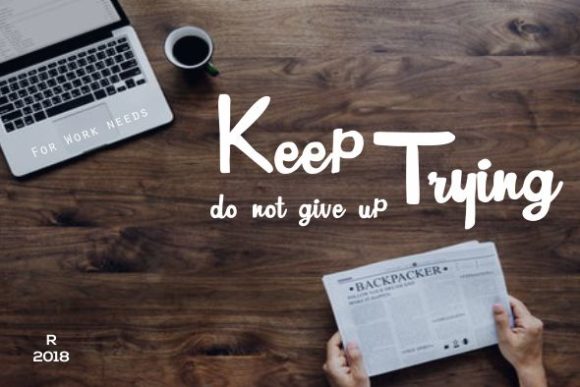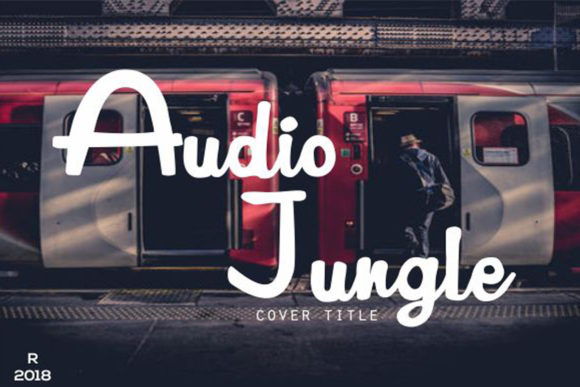
Introduction to Rollink Script Font
Have you ever found yourself stuck in the middle of a creative project, searching for that perfect font to elevate your design and make it truly stand out? We’ve all been there, scrolling through endless font options, hoping to stumble upon that one special font that adds a touch of magic to our work. Well, search no more, because we’re excited to introduce you to the Rollink Script Font – a modern script font that’s sure to become your new favorite design resource.
With its beautiful and distinctive writing style, the Rollink Script Font is perfect for logos, branding, motion graphics, visual designs, posters, invitations, typography, templates, product packaging, and advertisements. Whether you’re working on a free download project or a high-paying client job, this font is sure to bring a professional touch to your designs.
Key Features of Rollink Script Font
- High-quality, elegant design suitable for various creative projects, including wedding invitations, logos, and other design resources.
- Includes a range of ligatures and swashes, making it perfect for adding a touch of elegance to any design.
- Designed to be highly legible, even at small font sizes, making it ideal for use in various design contexts, including print and digital media.
- Perfect for designers and artists looking for a high-quality, free design resource to elevate their creative projects.
Honest Review: Rollink Script Font
As a designer, I’ve had my fair share of experimenting with various fonts for my creative projects. Recently, I stumbled upon the Rollink Script Font, and I must say, it’s been a delightful addition to my design resource library.
One of the standout features of this font is its elegant, handwritten style, which adds a touch of sophistication to any design. It works beautifully with a transparent background, allowing the text to take center stage.
Here are some of the things that work well for me:
- High-quality font that’s perfect for creative projects
- Works well with various design styles, from modern to vintage
- May not be suitable for small text sizes due to its cursive nature
- Lack of versatility in terms of font weights and styles
Overall, I’m quite impressed with the Rollink Script Font. Its unique style and high-quality design make it an excellent choice for designers looking to add a personal touch to their creative projects. With a bit of creative experimentation, I’m confident that this font will become a staple in my design resource library. ✨
Tips for Getting the Most Out of Rollink Script Font
To get the most out of Rollink Script Font, experiment with different font sizes, colors, and alignments. You can also use the font in combination with other design elements, such as images and shapes, to create a unique visual effect.
Common Use Cases for Rollink Script Font
The Rollink Script Font is ideal for creating beautiful typography for wedding invitations, baby shower invitations, and other special occasion designs. You can also use the font to create stunning headlines and titles for your blog or website.